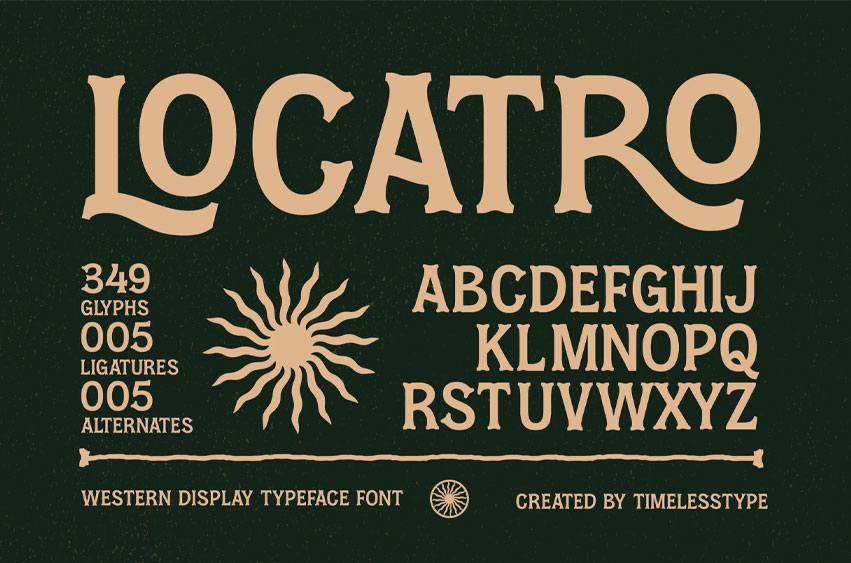
Locatro Font is a western-inspired display typeface with bold character and vintage flair, designed to bring a rugged and distinctive personality to your creative projects.
Featuring handcrafted details and classic letter shapes, this font, branding, and editorial layouts. With its strong presence and nostalgic design, Locatro adds an authentic Old West touch to both print and digital.